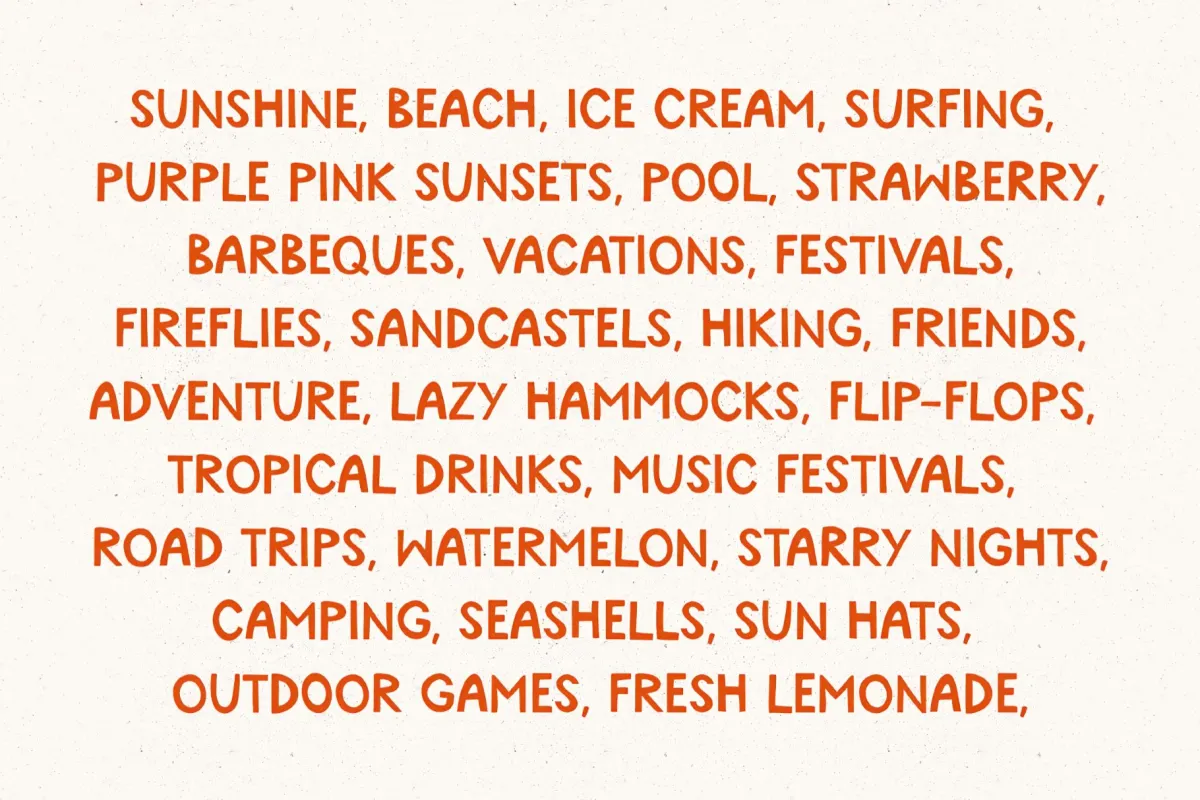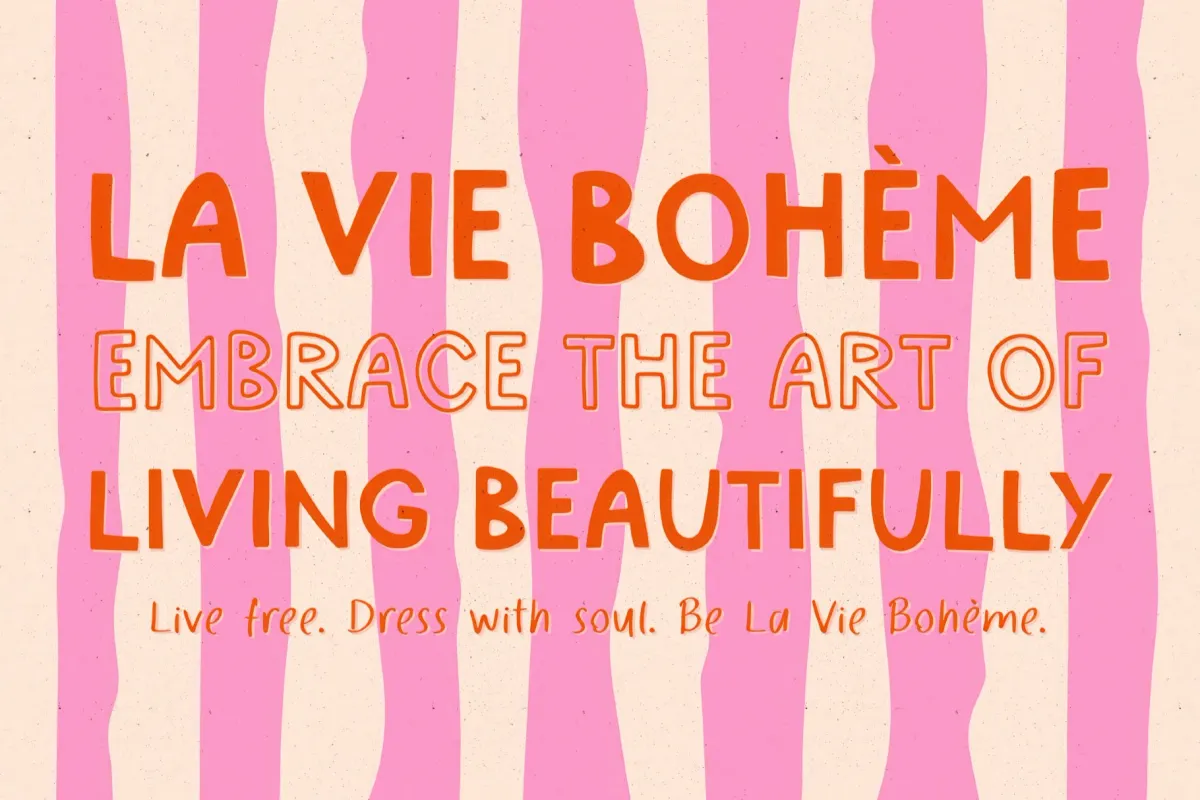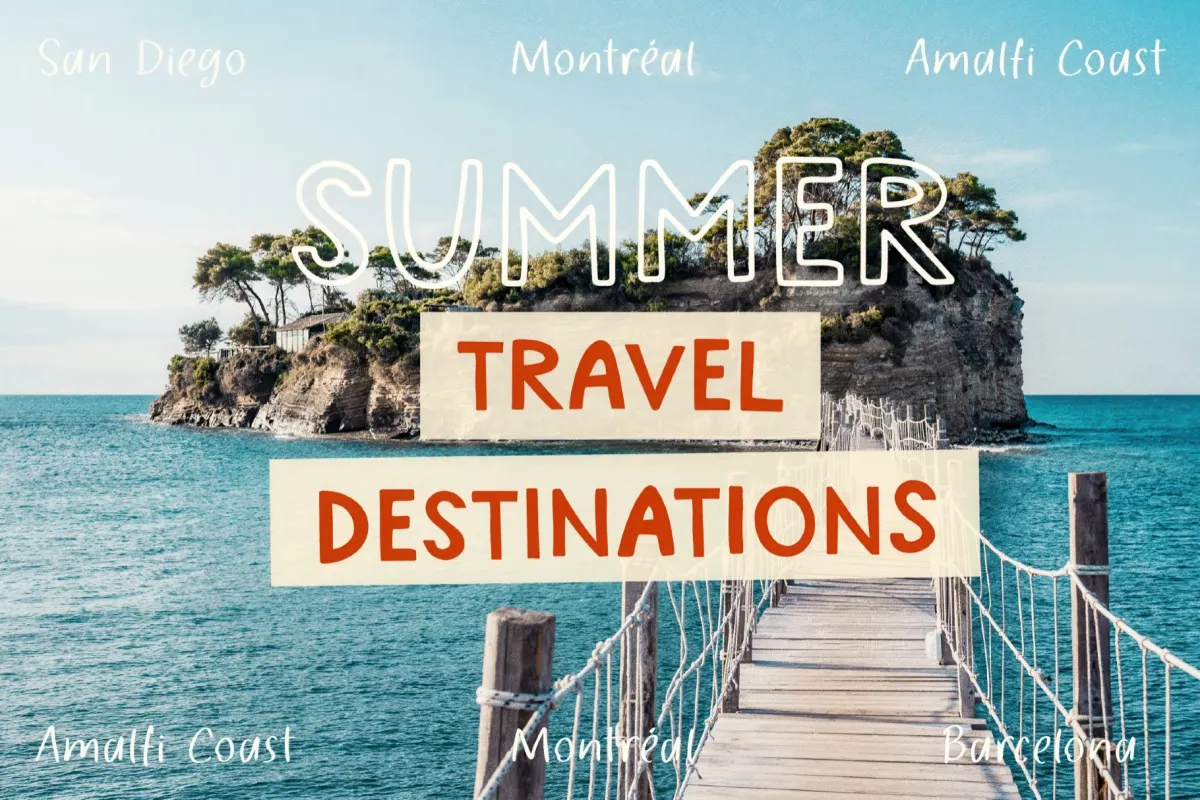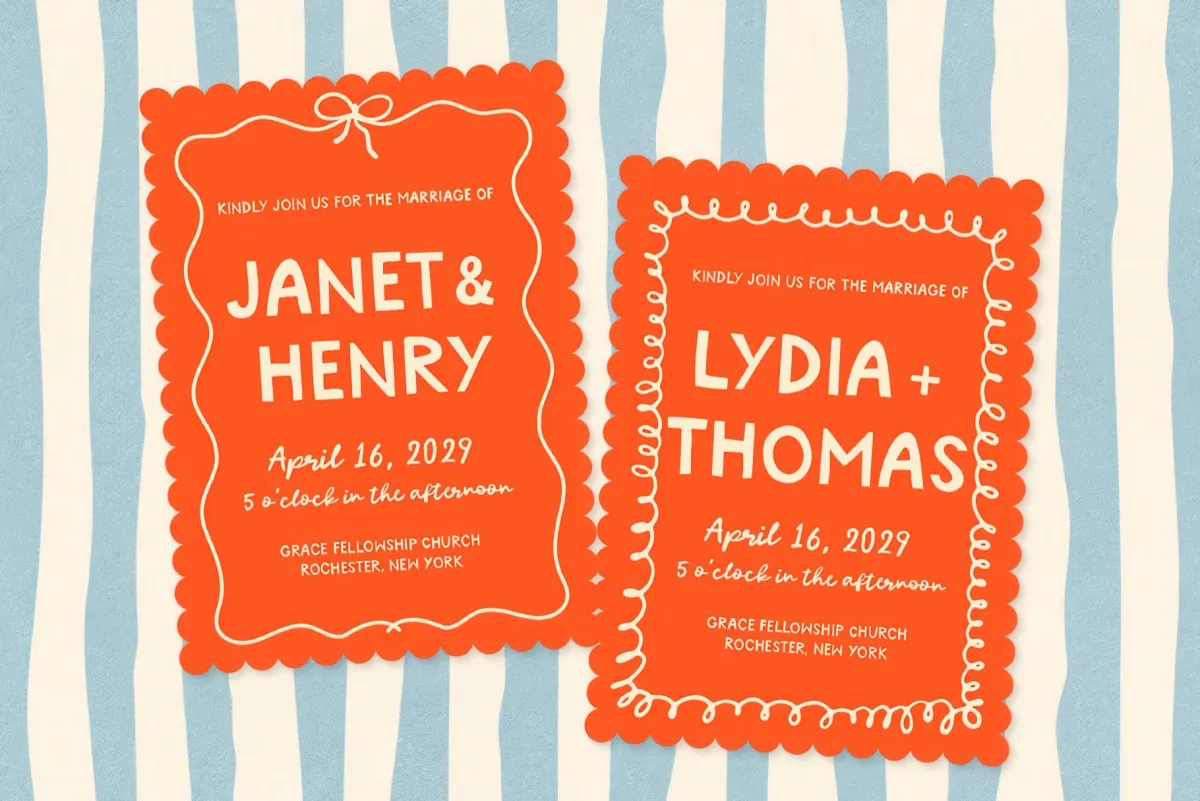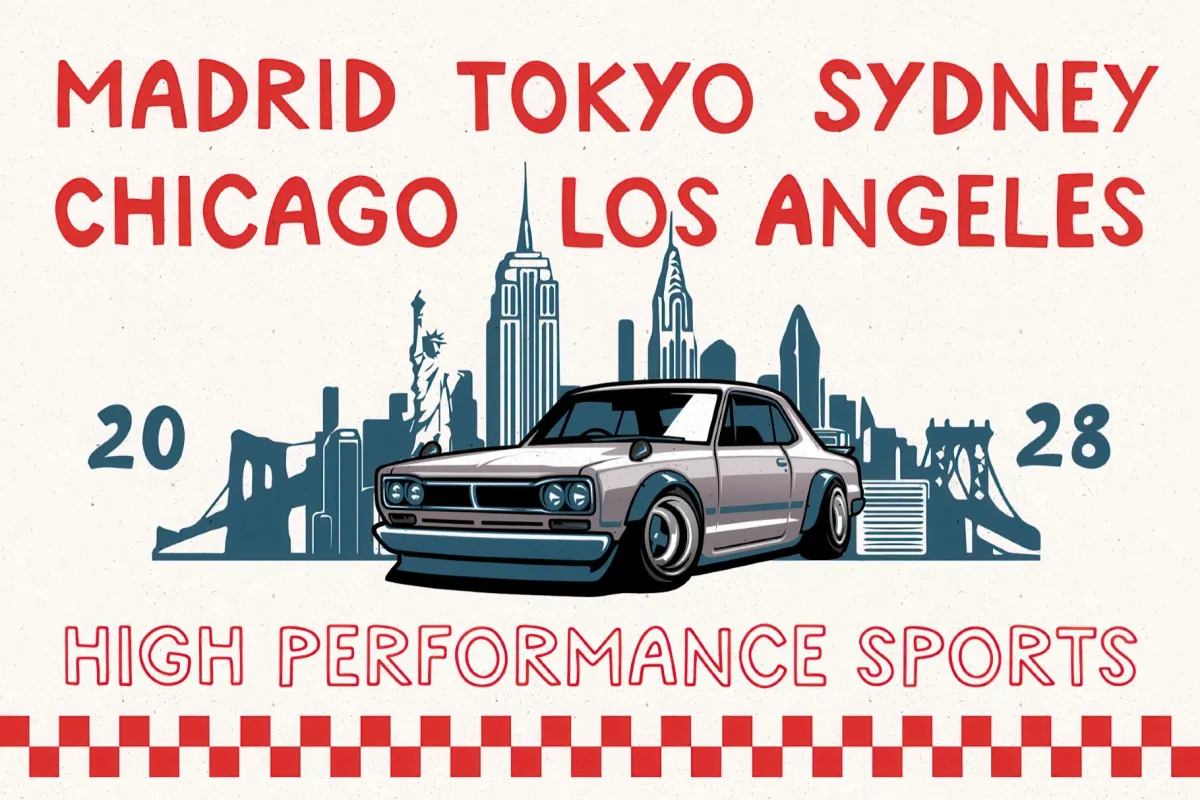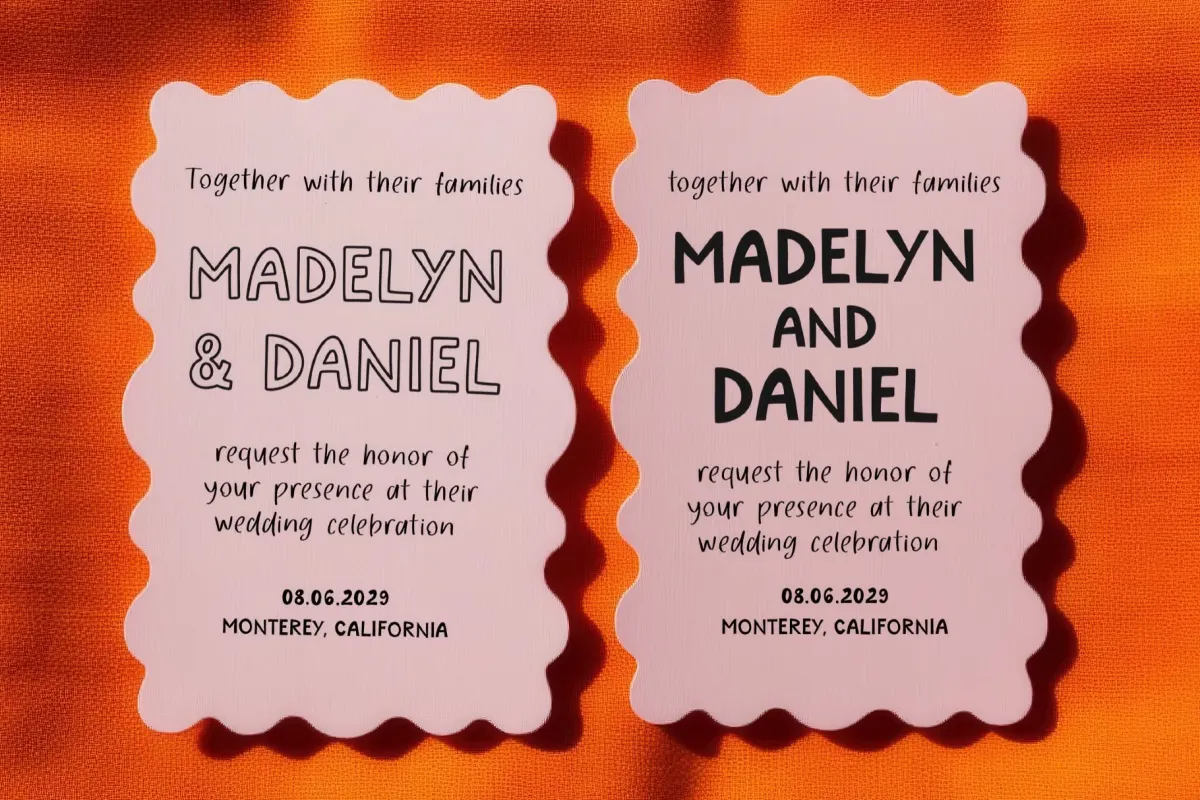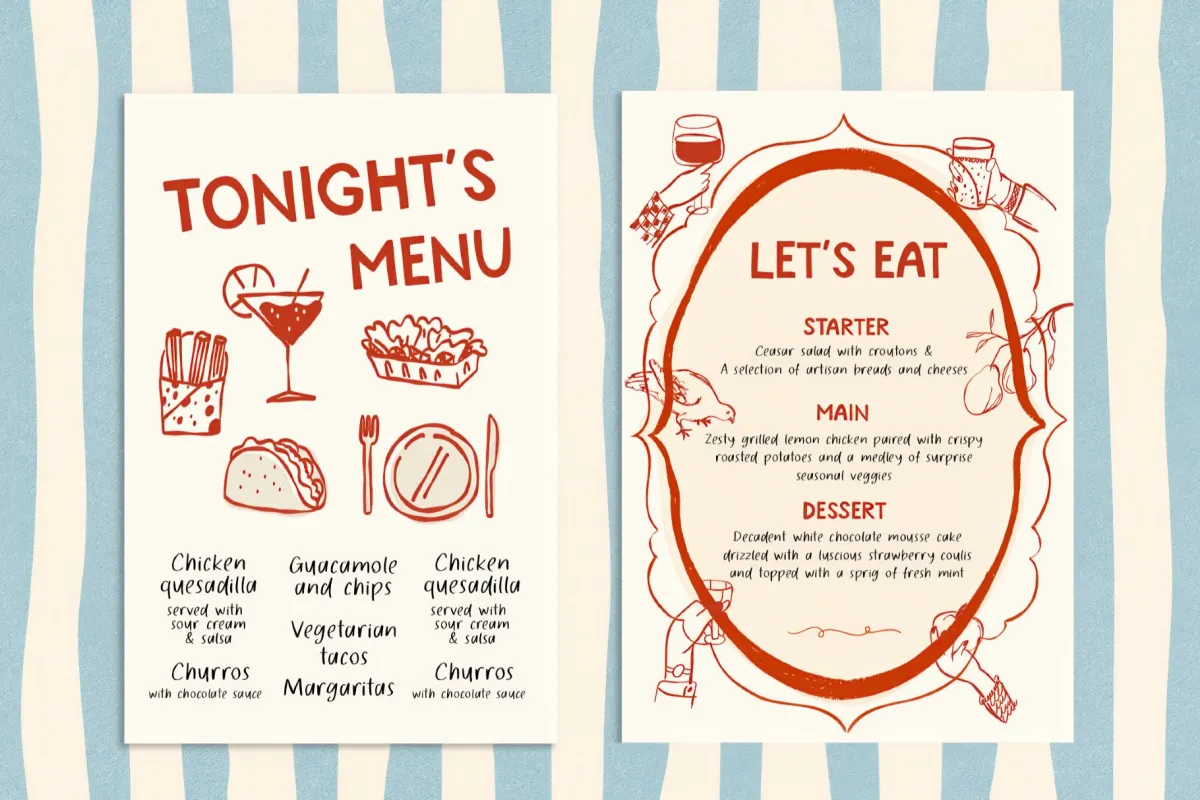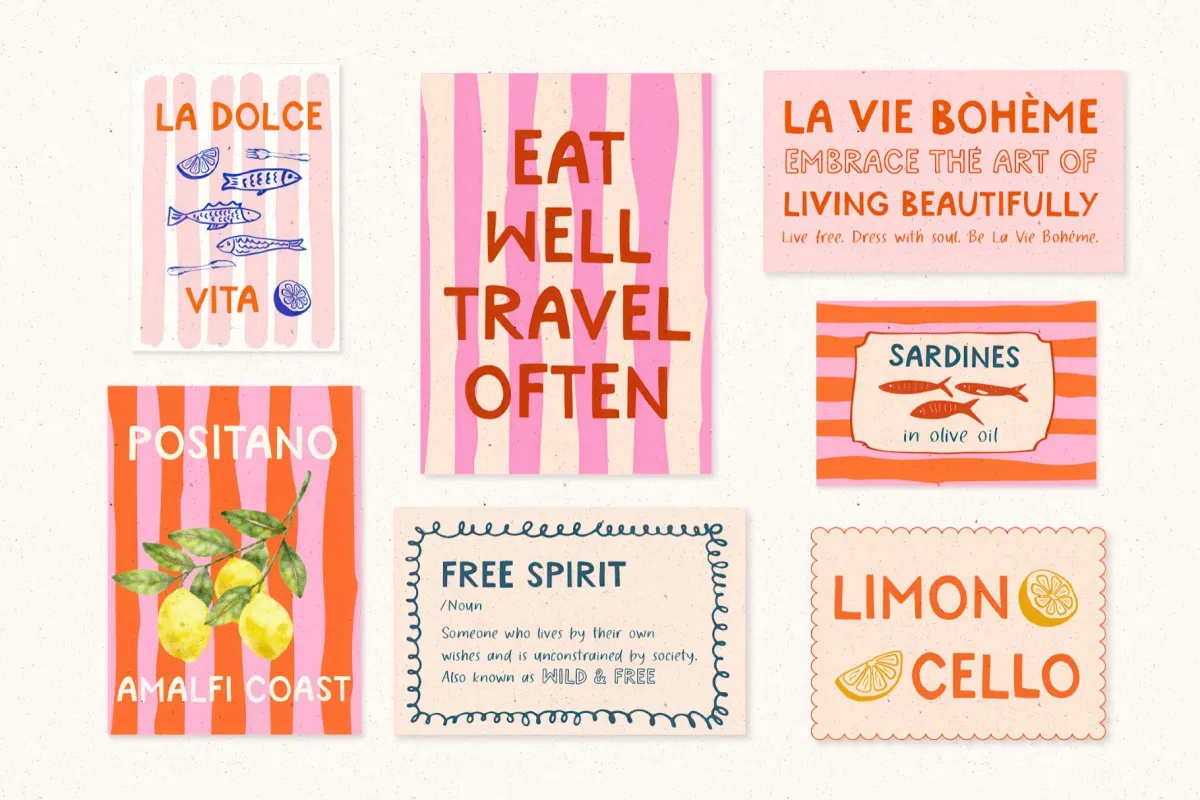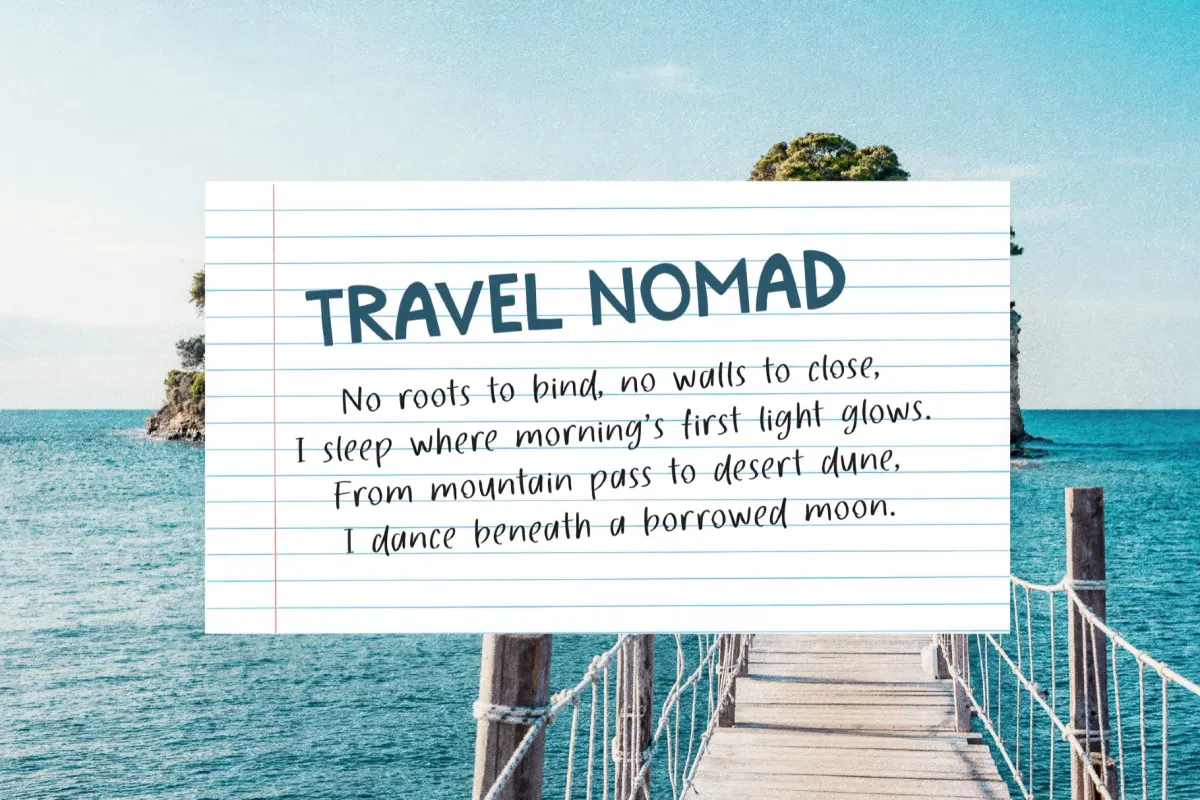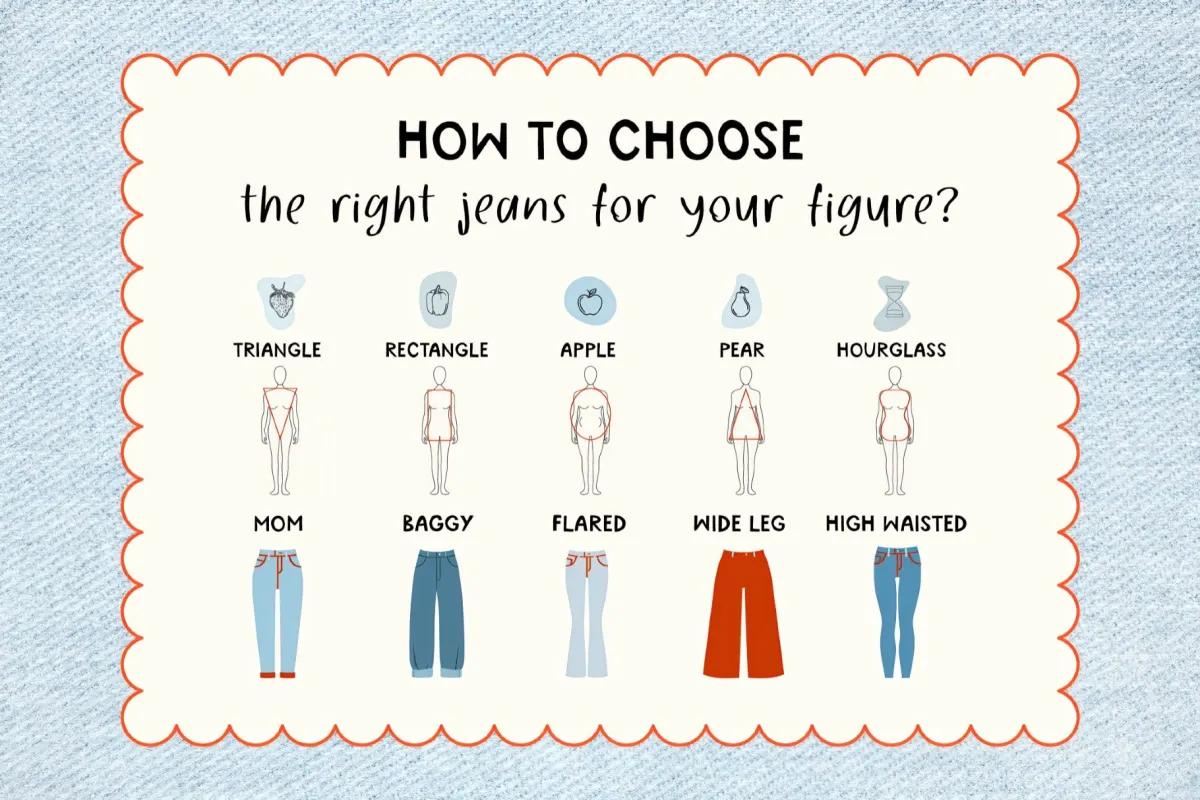
Faded Blue Jeans: Handwritten Sans Outline Display
Faded Blue Jeans
This casual hand-drawn display font trio conveys the lived-in, off-duty ease of a denim-and-white-tee wardrobe. The regular weight is drawn by hand with a chunky, slightly uneven stroke, rounded corners, and a relaxed baseline. The set covers three styles: a solid display weight, a matching hollow outline, and a looser handwritten script.
Uses:
- Branding and logos — casual brands, cafés, surf shops, small studios, clothing labels.
- Poster and flyer design — events, markets, summer sales, community boards, gig flyers.
- Wedding and invitations — save-the-dates, casual invites, place cards, table signage.
- Merchandise — t-shirts, totes, mugs, stickers, enamel pins, patches.
- Social content — quote cards, announcement posts, story templates, reel covers.